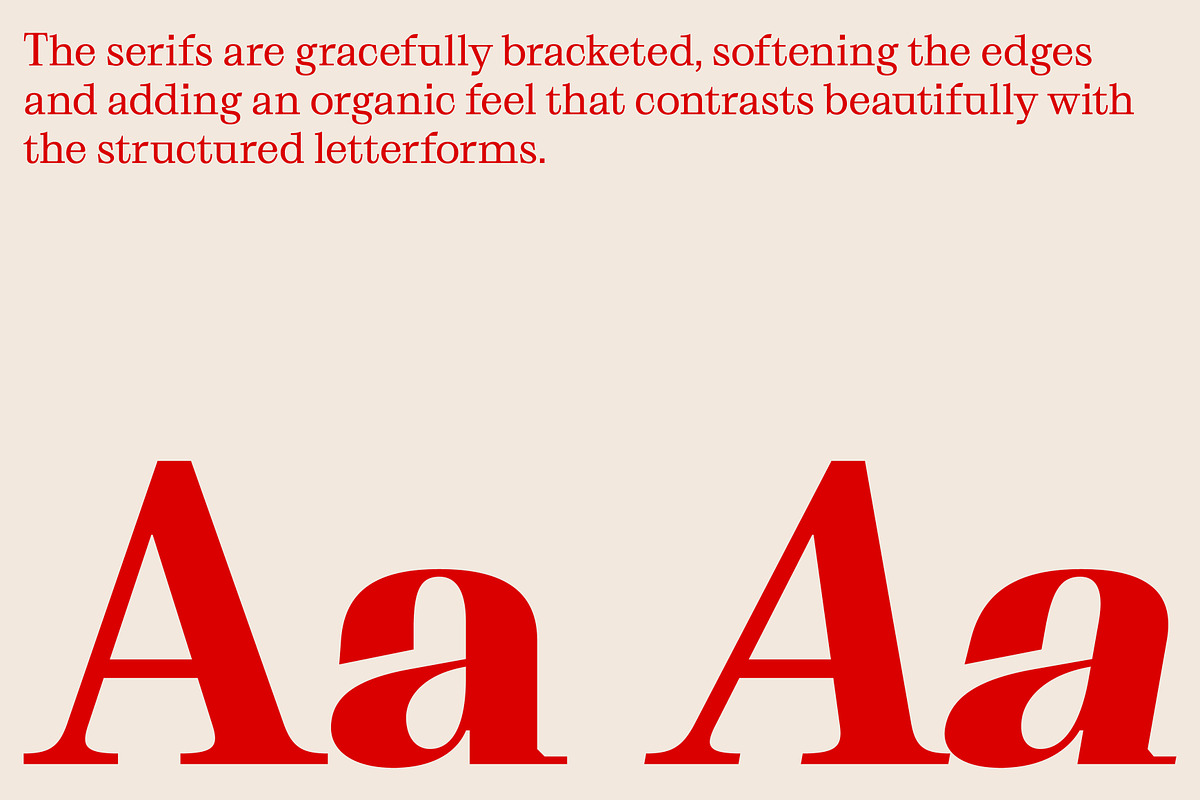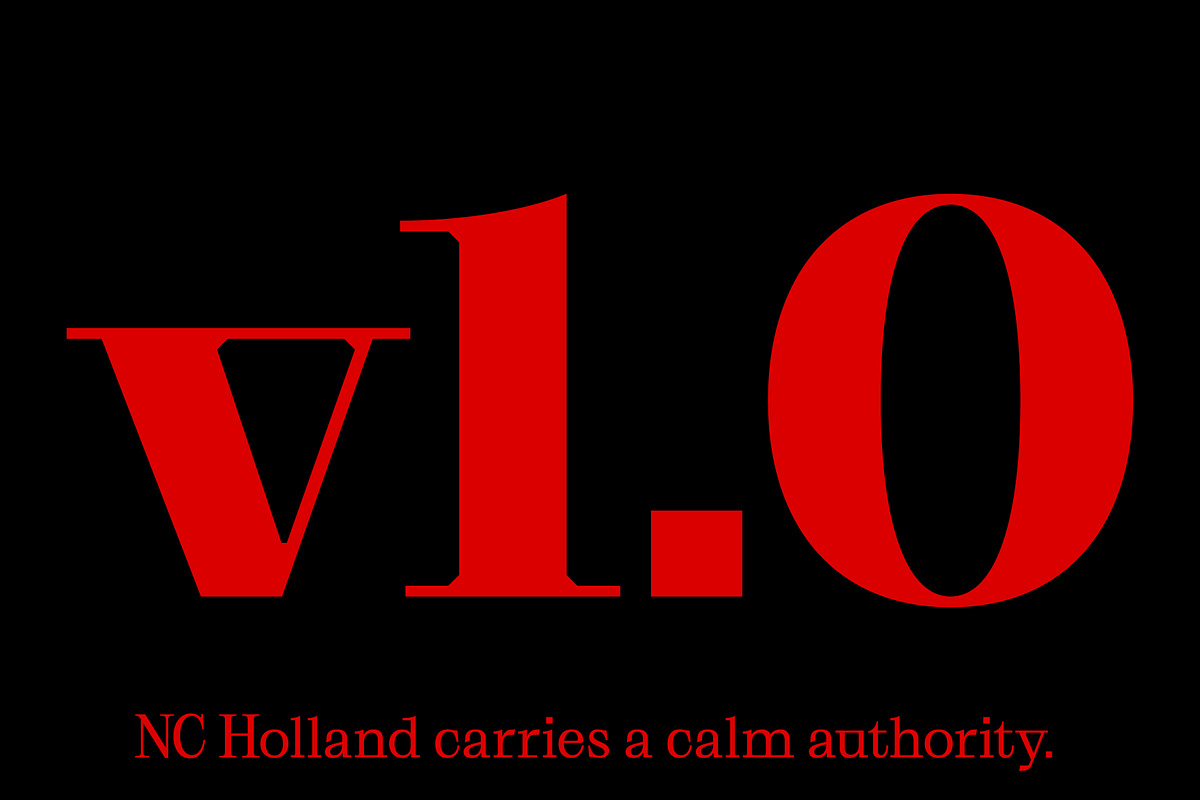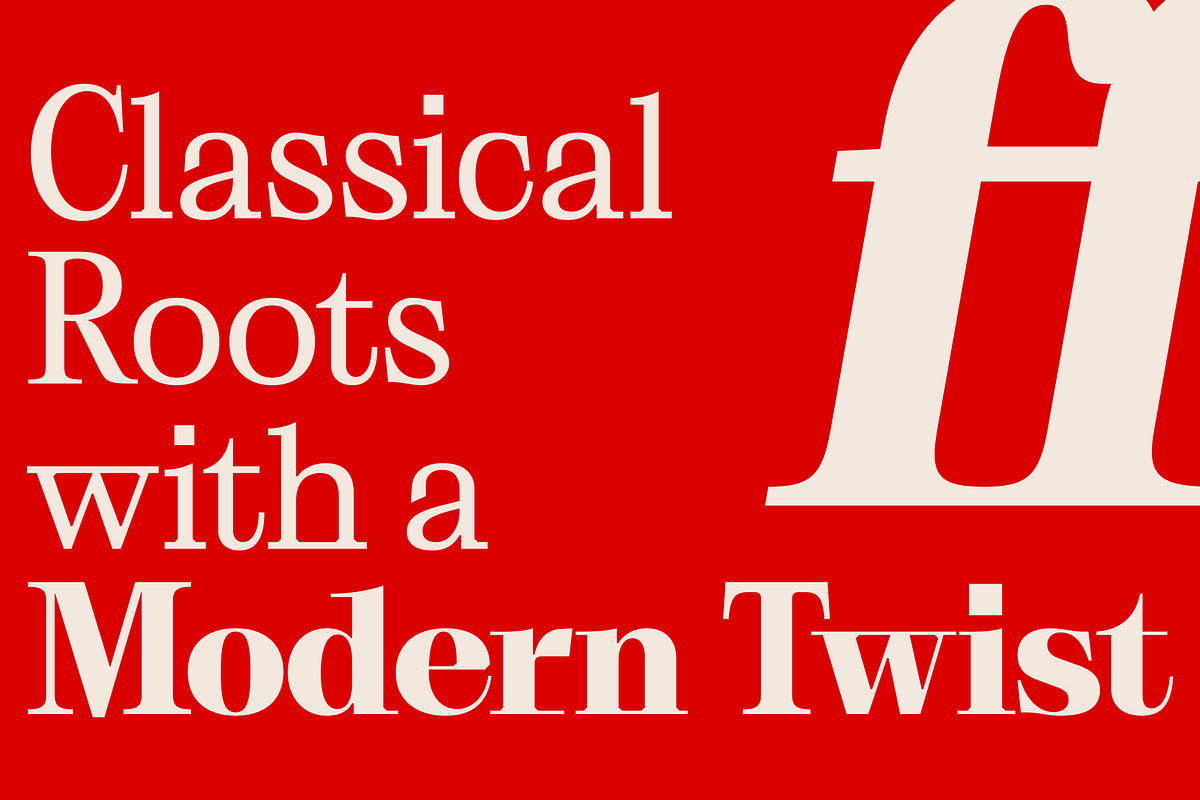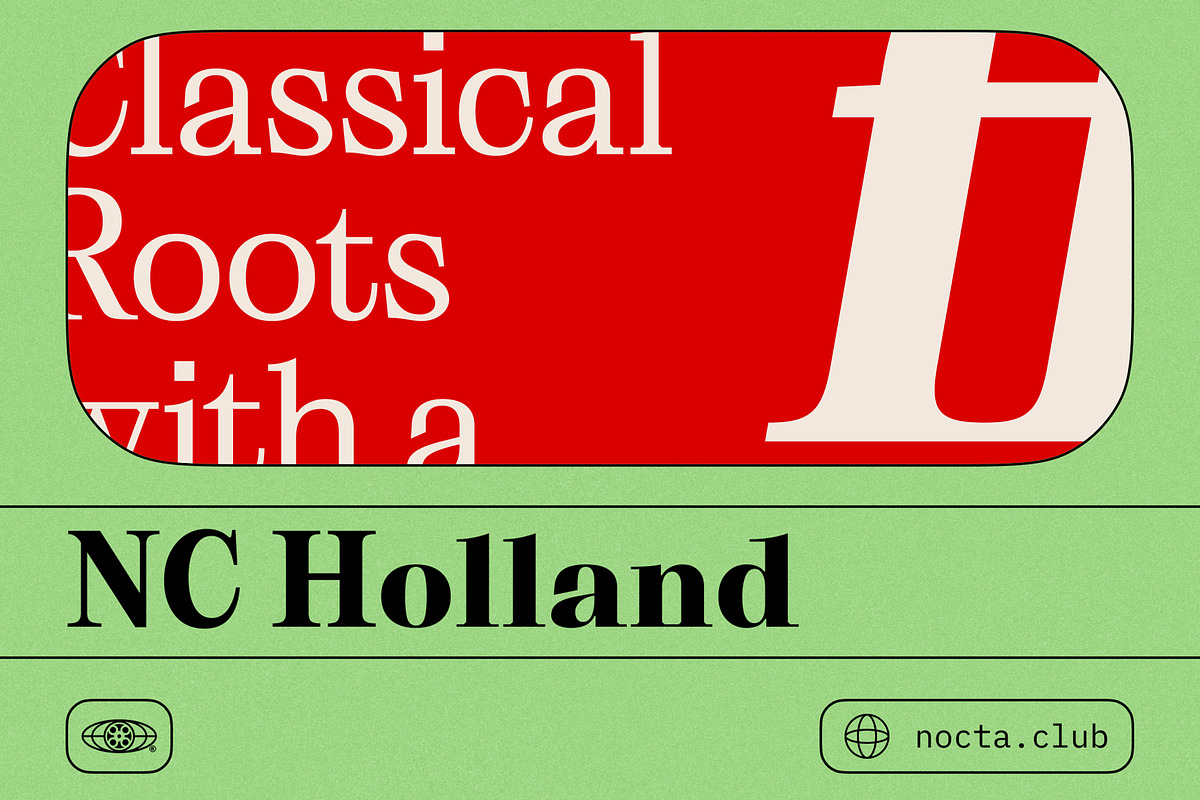
NC Holland — Serif for Storytelling
NC Holland is a refined serif typeface built for high-impact editorial work, luxury branding, and expressive headlines. It draws from transitional and modern serif traditions, blending crisp contrast with fluid curvature and sharp detailing. The Italic is especially expressive, featuring dramatic slants and elegant swashes that lend rhythm and emotion to longer-form content. Holland thrives in large sizes—magazines, art direction, campaigns—where its confident voice and refined proportions can take center stage.